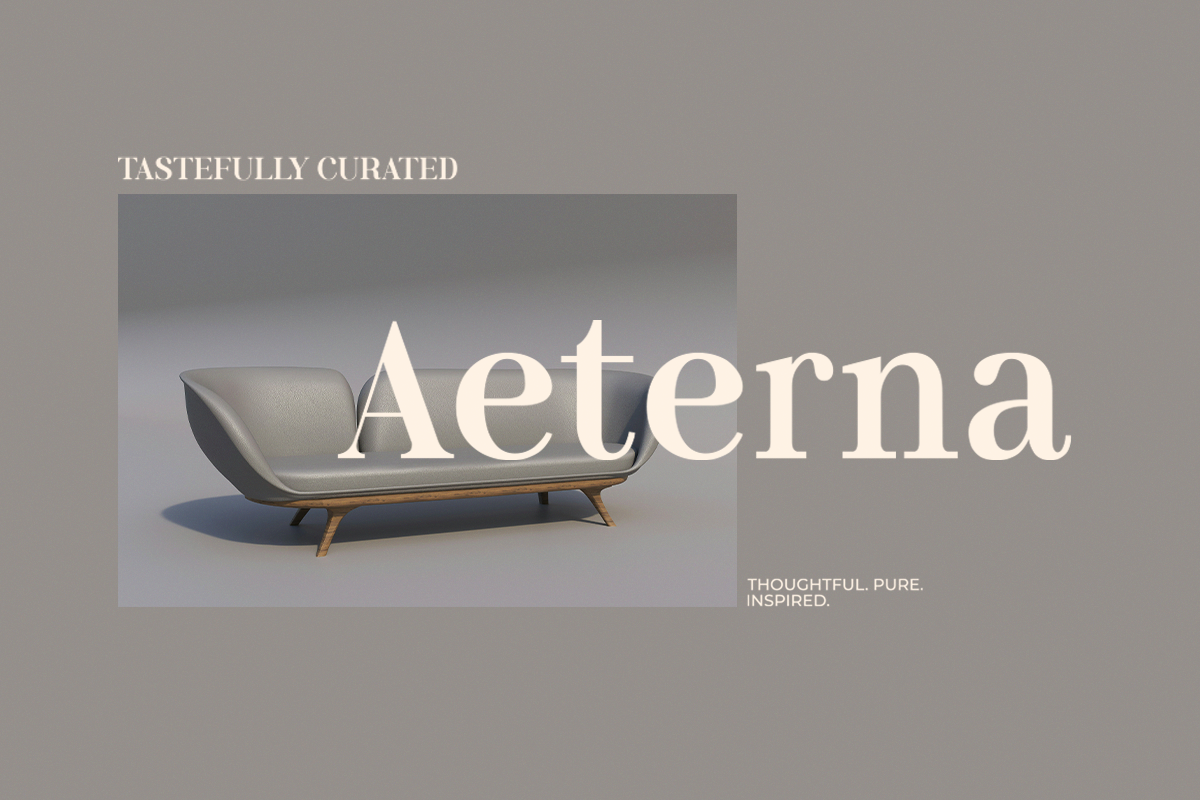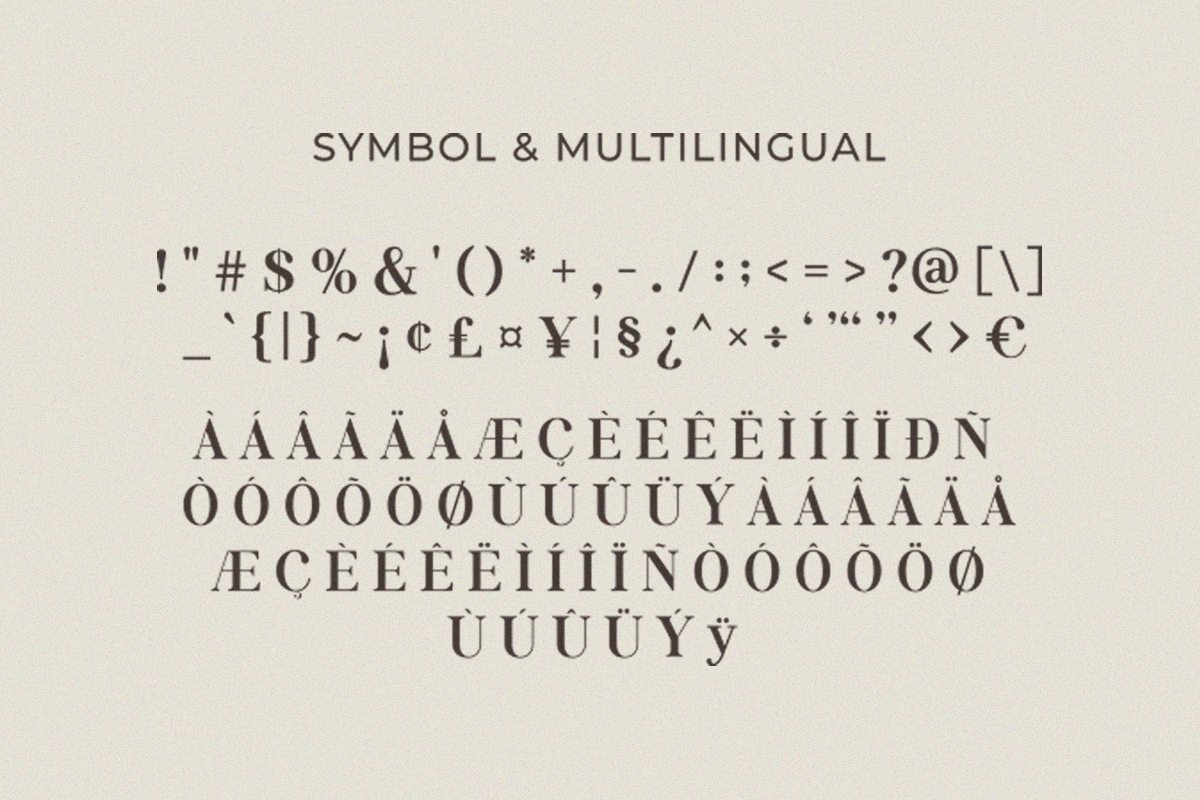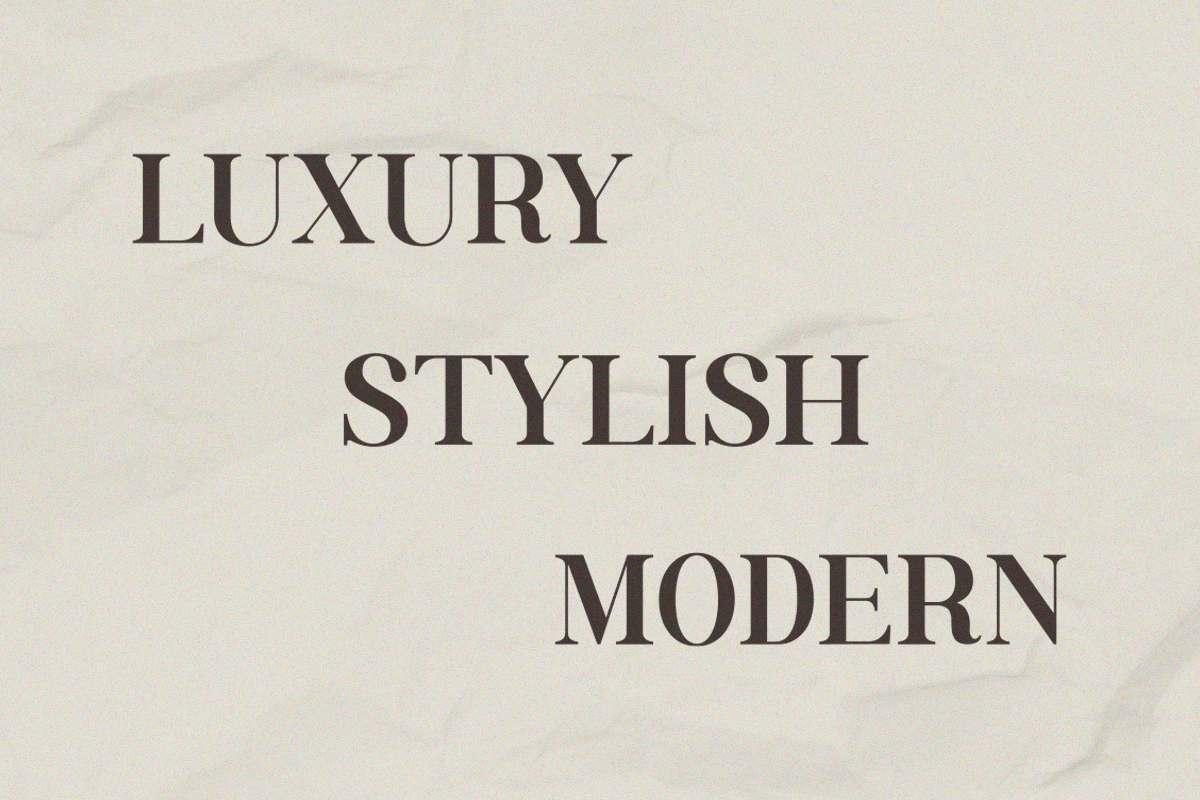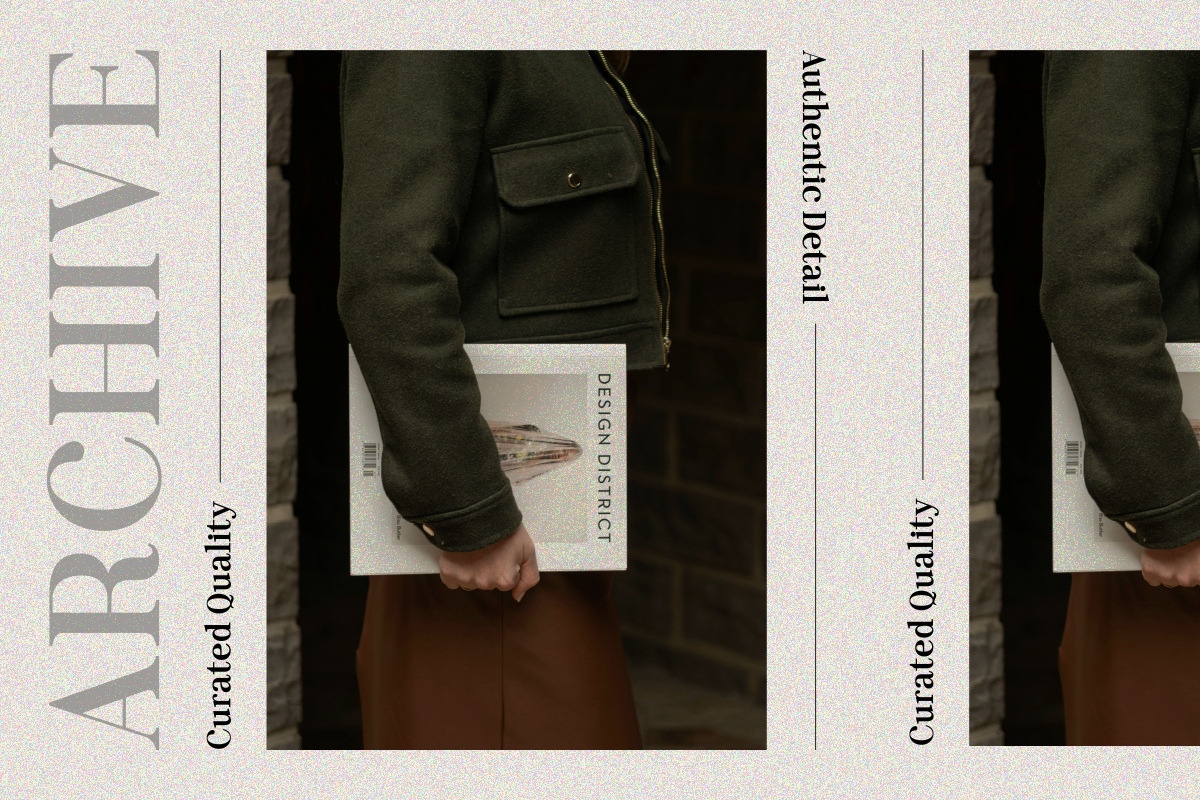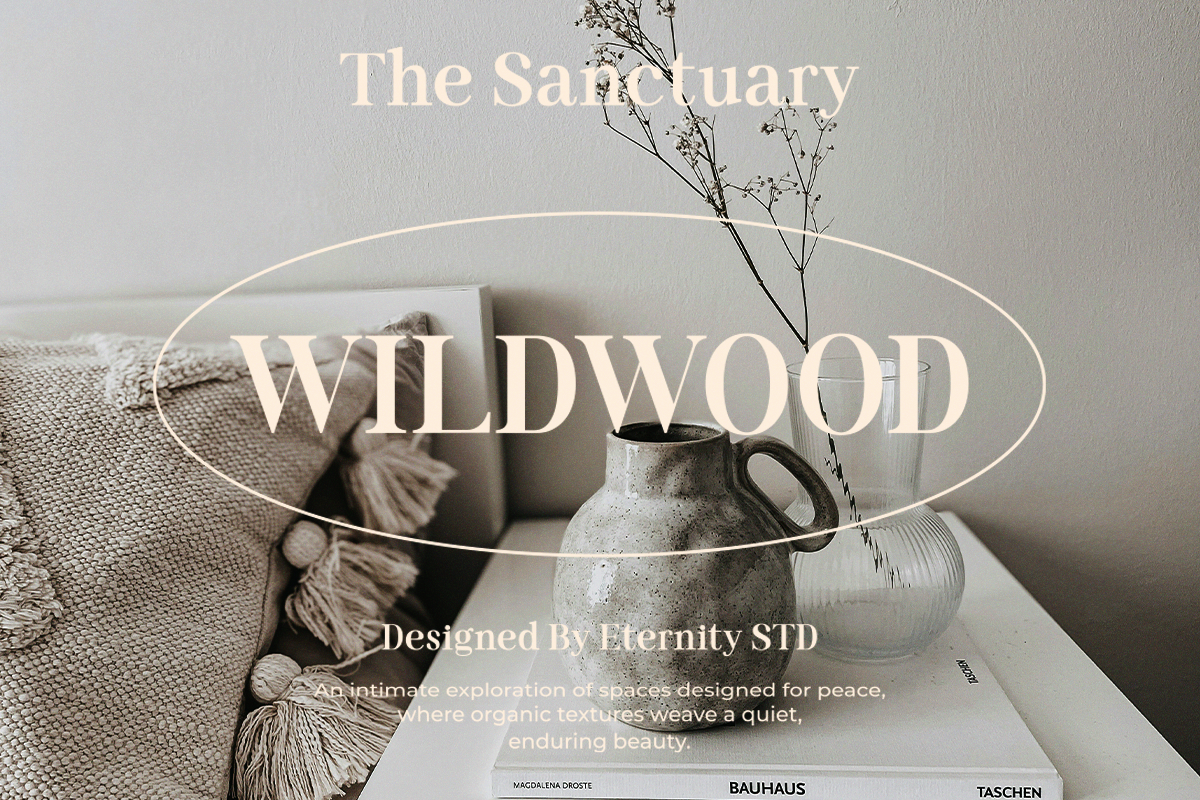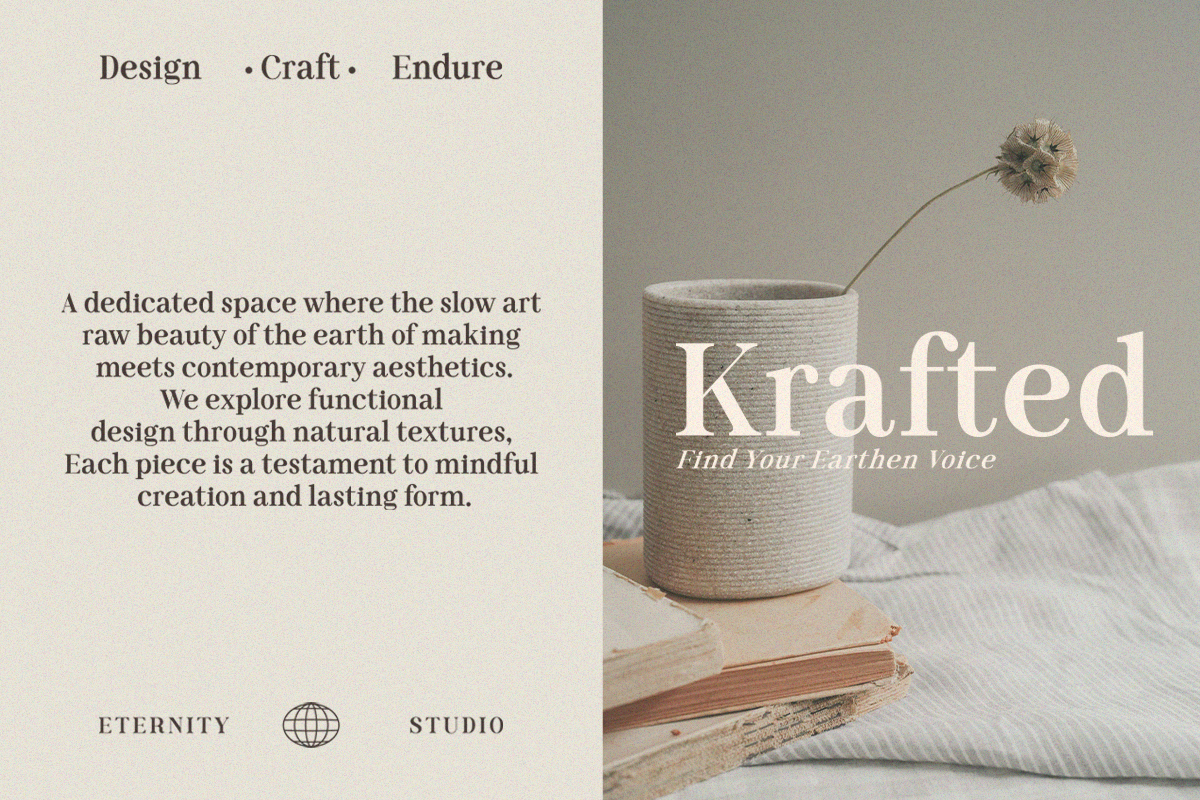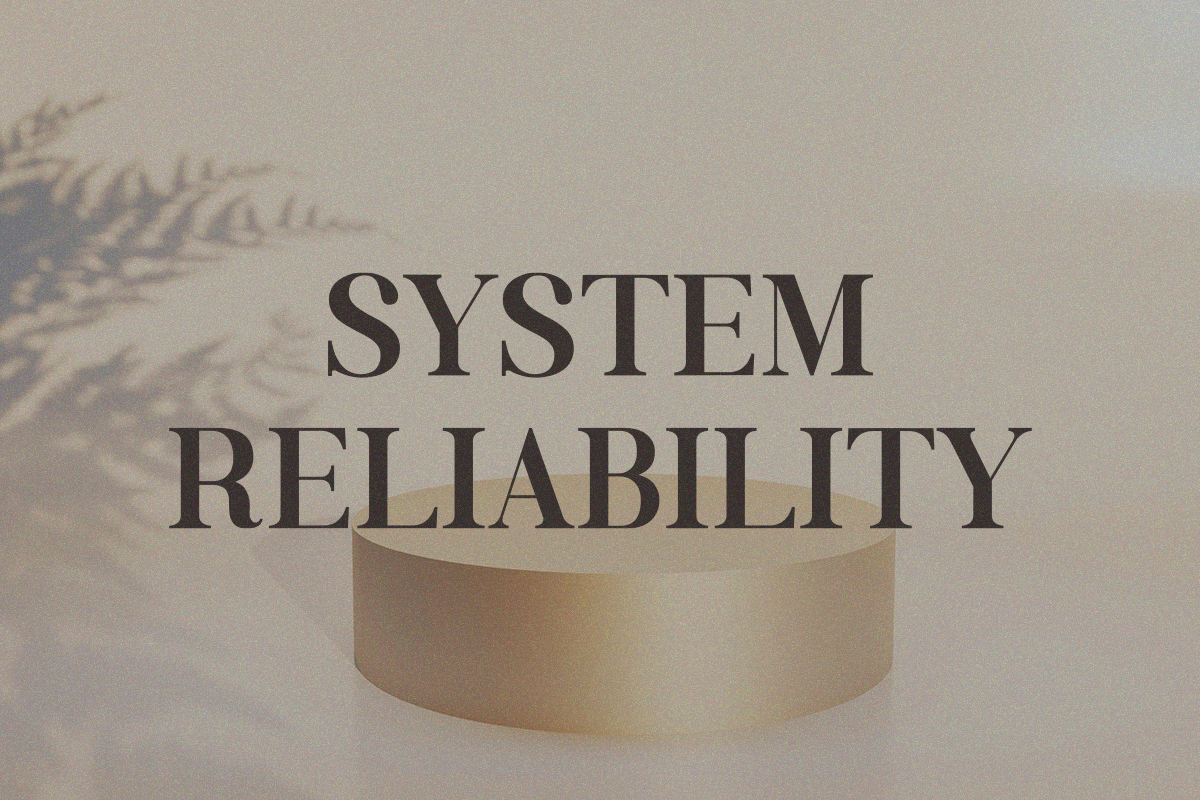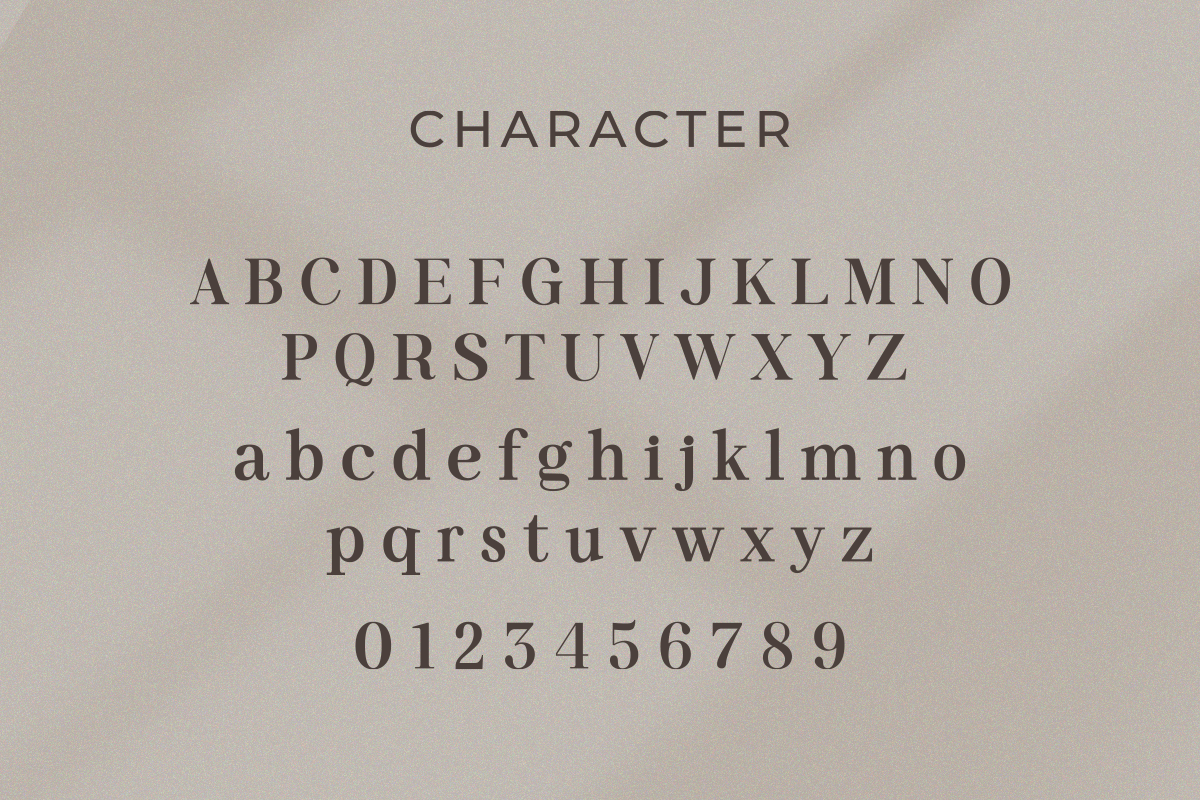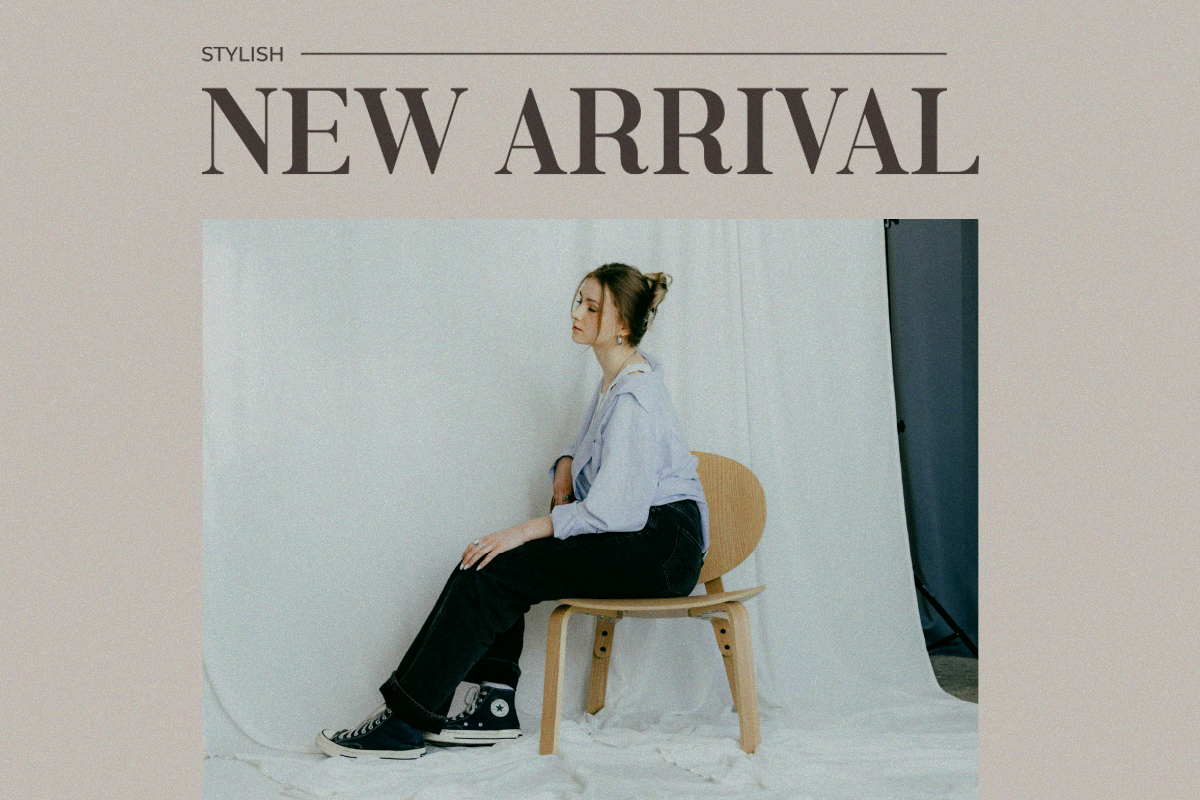
ET Bravel - Modern Classic Serif
Introducing the ET Bravel Modern Classic Serif! This font isn't just about style—it's about giving your projects a commanding presence with timeless elegance. With its sleek and refined letterforms, ET Bravel is perfect for all your high-end design needs. Whether you're crafting a distinctive logo, designing a premium magazine layout, or creating a stunning website header, this font delivers sophistication.
Ensuring flawless compatibility across platforms. Plus, it’s multilingual-friendly, so no matter which language you’re working with, ET Bravel has you covered.